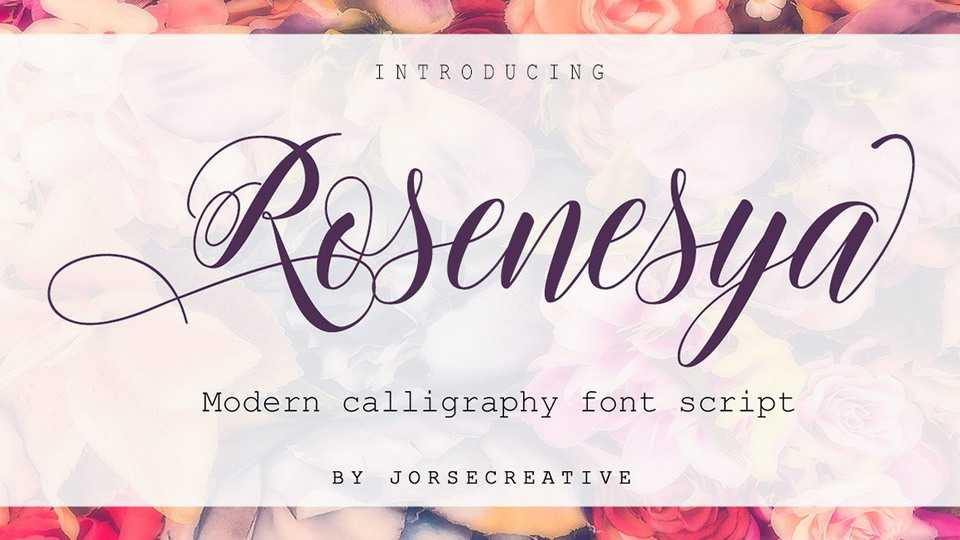
Download Rosenesya Script font, a stylish calligraphy script that features a varying baseline, smooth line, classic and elegant touch. It can be used for various purposes.such as headings, signature, logos, wedding invitation, t-shirt, letterhead, signage, lable, news, posters, badges etc.
Designer: Jorsecreative